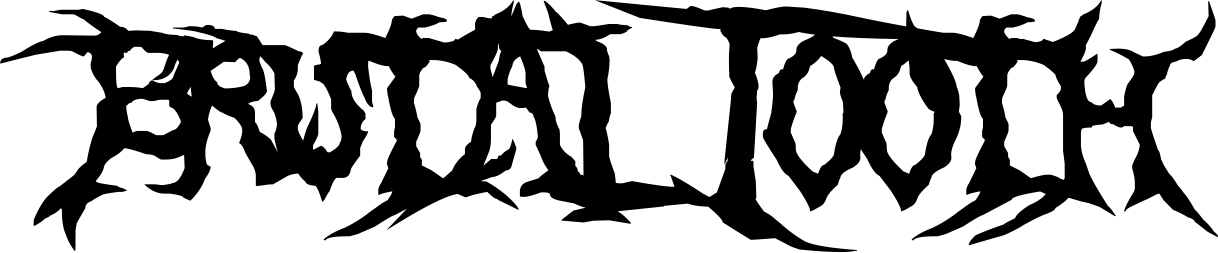
Brutal Tooth Font
Brutal Tooth makes a great choice for those of you who are after a creepy font to use on Halloween flyers. The oozing vibes it gives off are noticeable. Although it lacks the numbers and general punctuation in the charac…
Brutal Tooth makes a great choice for those of you who are after a creepy font to use on Halloween flyers. The oozing vibes it gives off are noticeable.
Although it lacks the numbers and general punctuation in the character collection, you have both uppercase and lowercase letters. Given that Brutal Tooth may not be quite readable, it works best on titles and headings and not the body text. Use it on horror movie posters, flyers, magic shop signs, and many more.